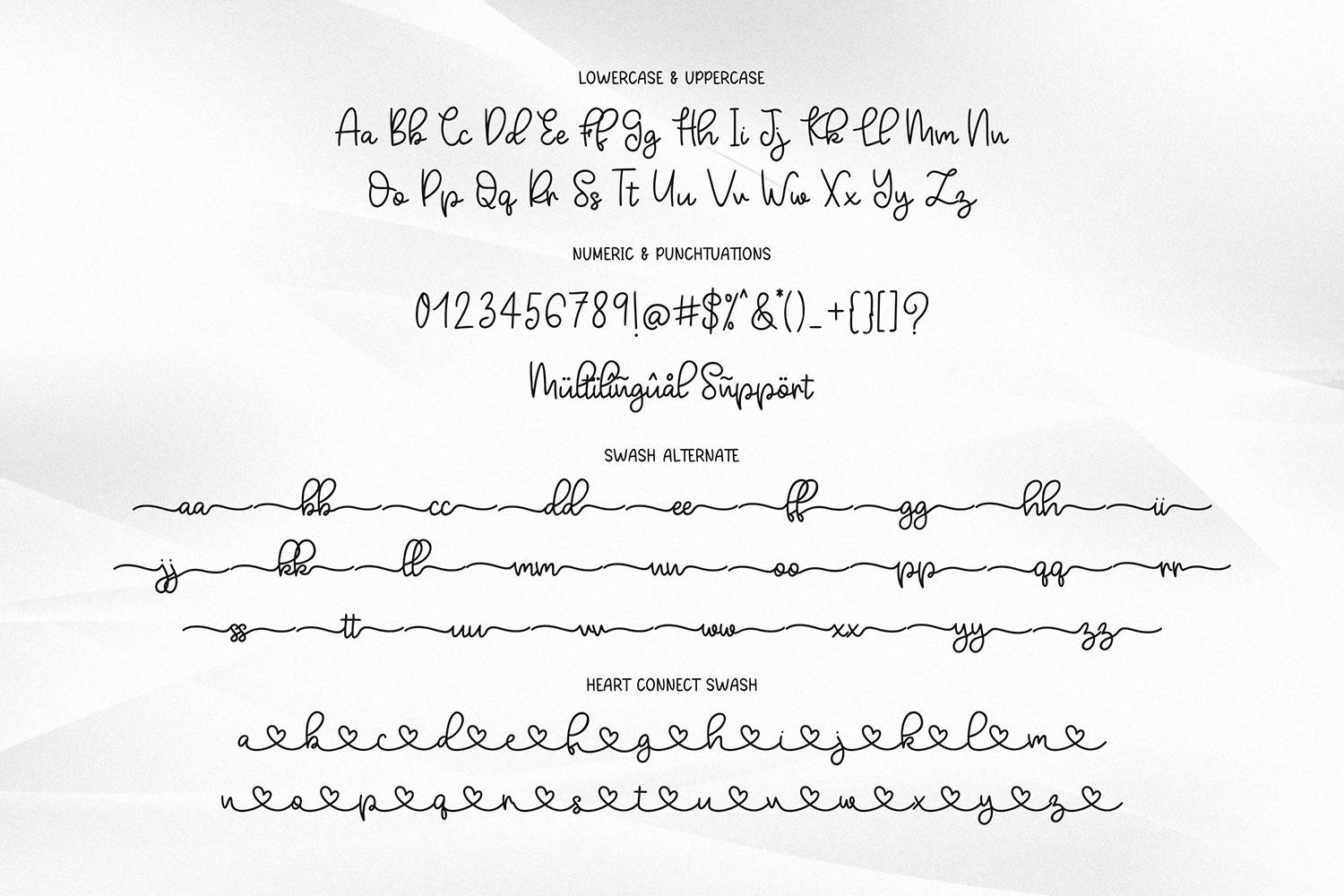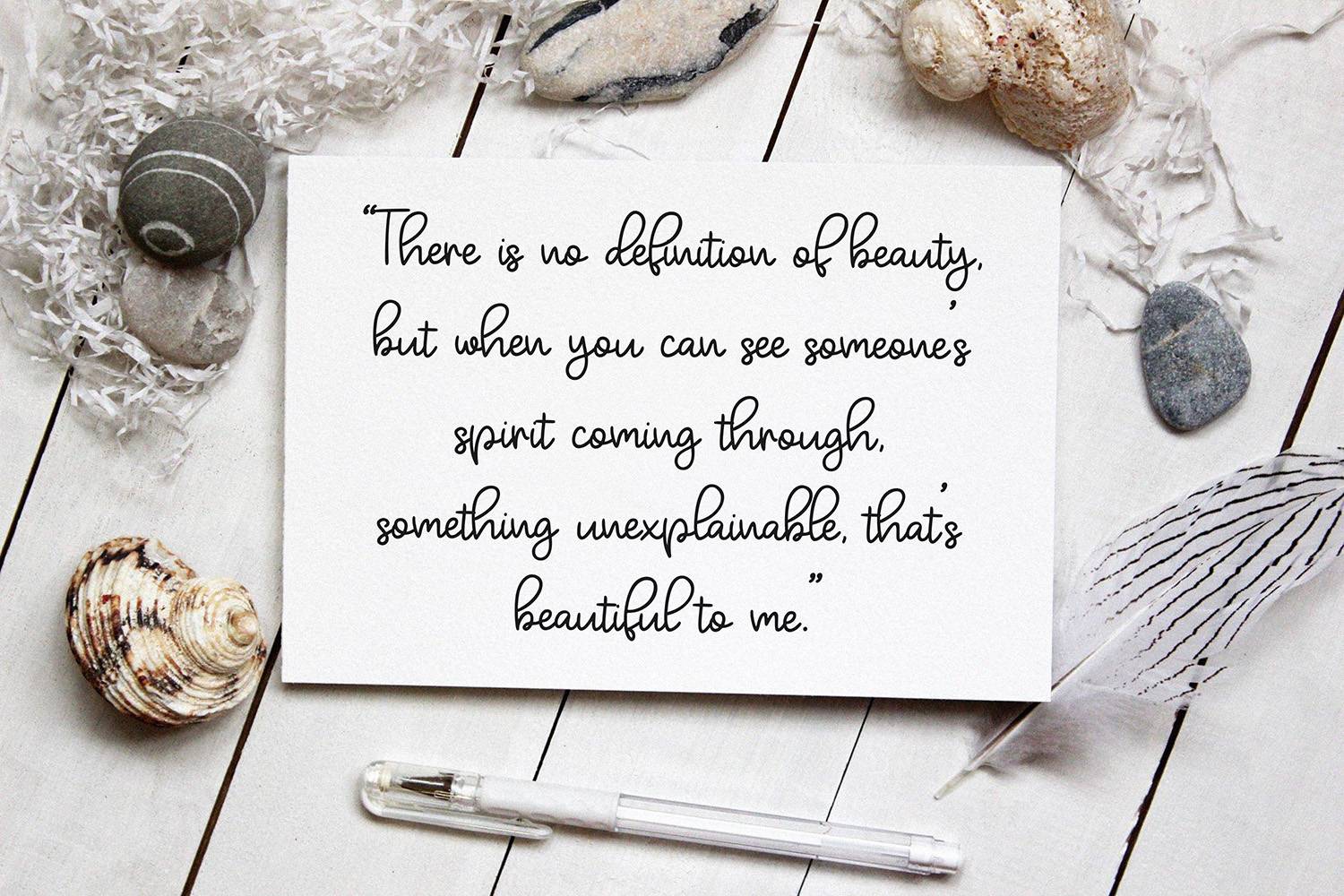
Mada Kayla is a playful, handwritten script font with a whimsical and casual feel. Its thin, even strokes and smooth curves give it a friendly and approachable personality, ideal for creative and informal designs. This font works wonderfully for personal branding, invitations, and fun packaging where a lively, human touch is desired.
Mada Kayla Font
About Mada Kayla Font
| Font family | Mada Kayla Font |
| Release date | 2022-11-13 |
| Designer | Sulthan Mada Maulana Tsani |